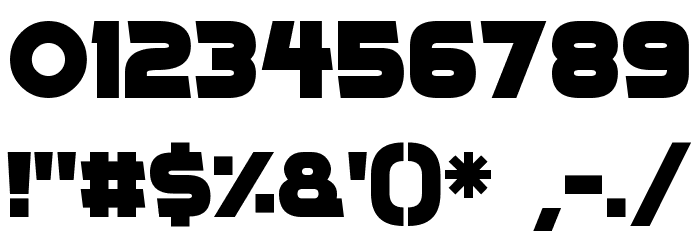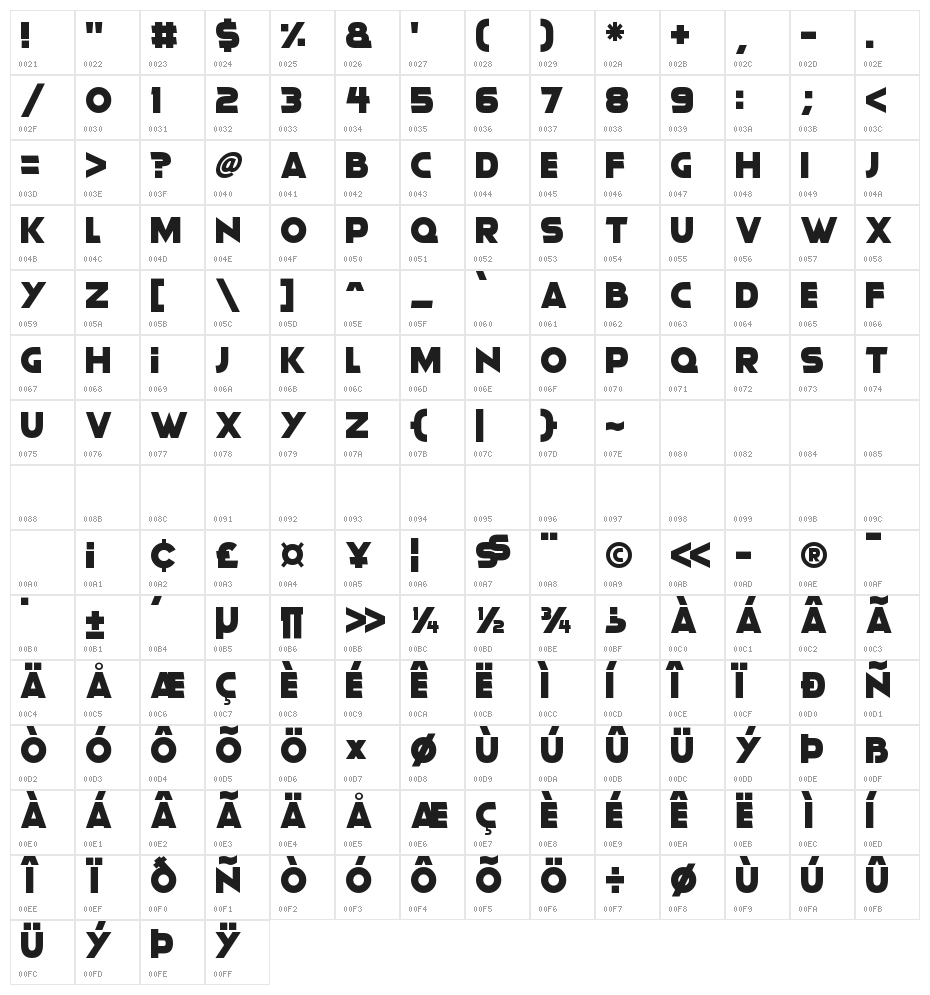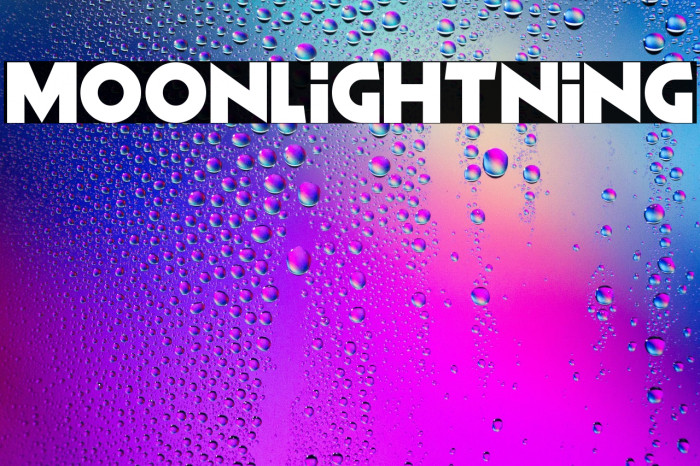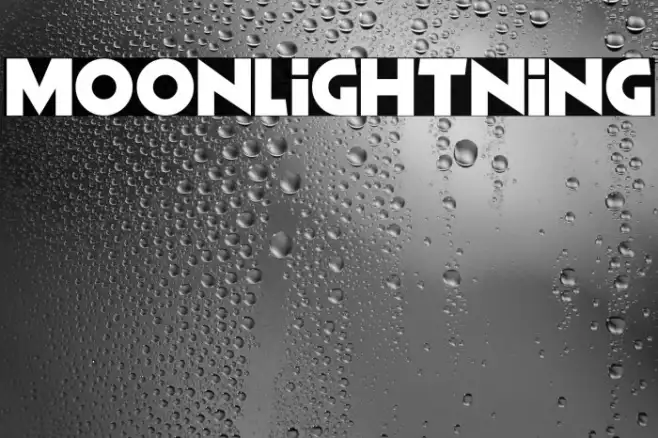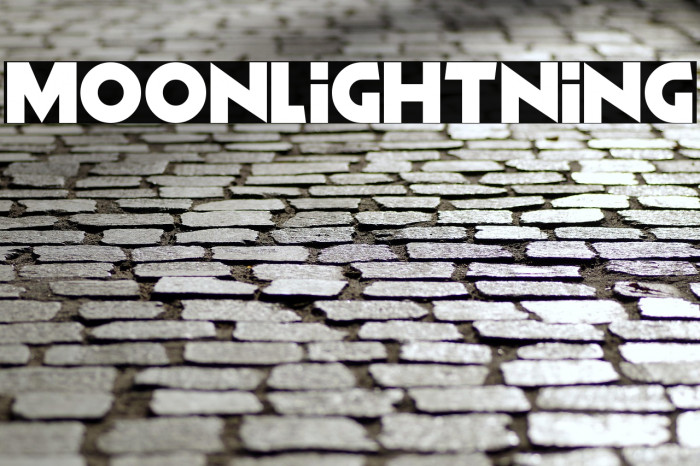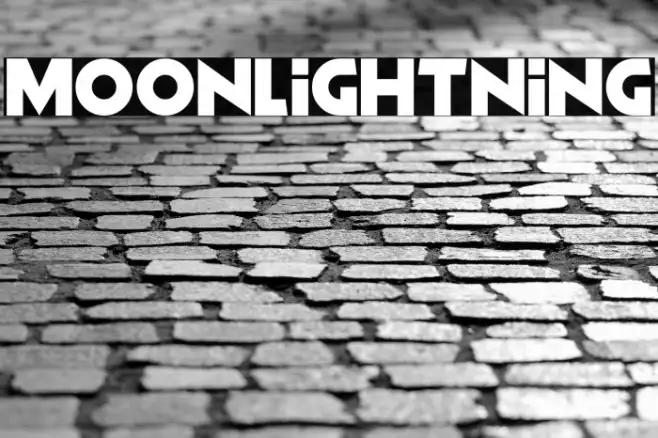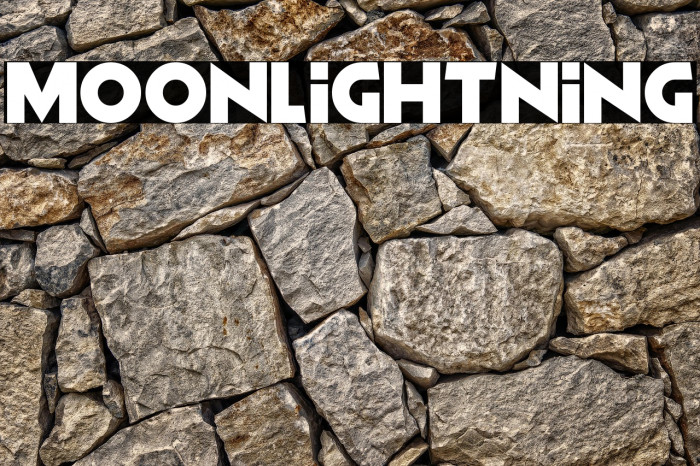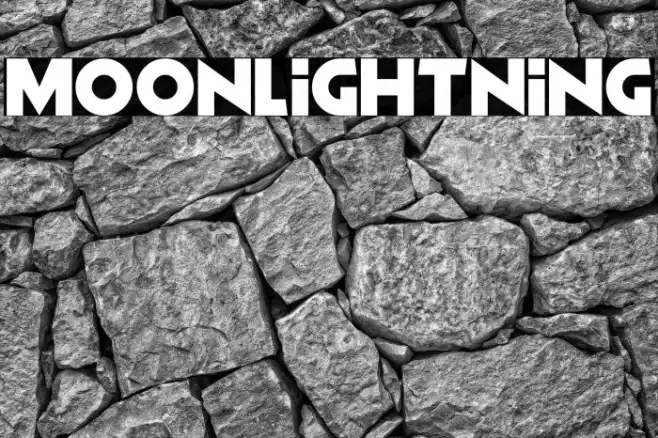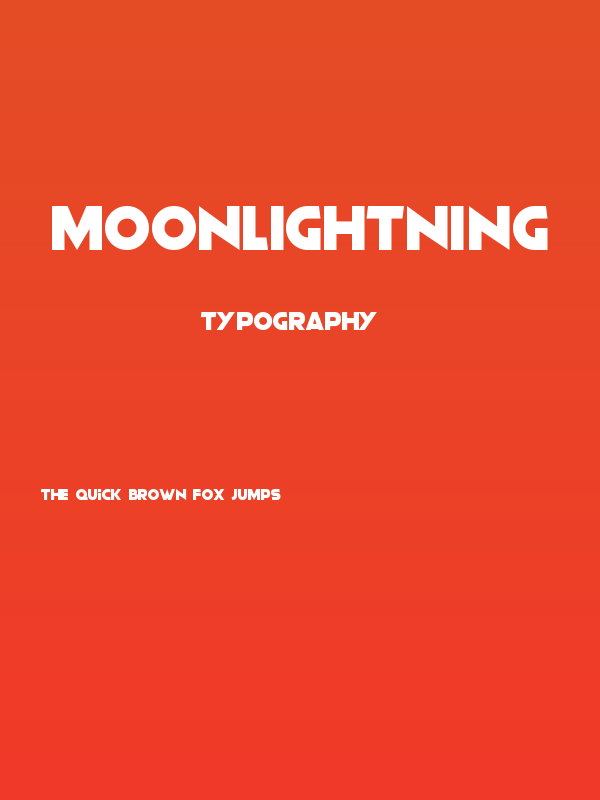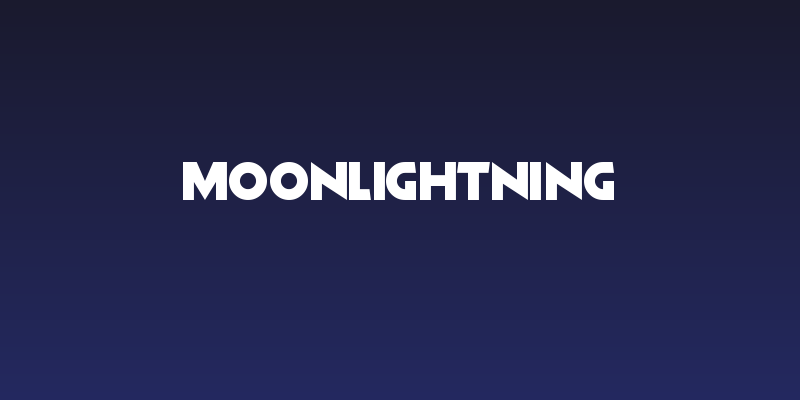
Moonlightning Font
Moonlightning Description
This bold and striking font features a strong geometric design with thick, uniform strokes that create a powerful visual impact. The characters are crafted with a modern aesthetic, showcasing a blend of sharp angles and smooth curves. The uppercase and lowercase letters maintain a consistent style, with a slight variation in the lowercase 'i' and 'j' which include a dot. The numerals are equally robust, designed to stand out with their solid form. Special characters are included, maintaining the same bold and impactful style, making this font versatile for various applications.
| Proposed Projects | Ideal for branding, headlines, posters, and any project requiring a strong visual presence. |